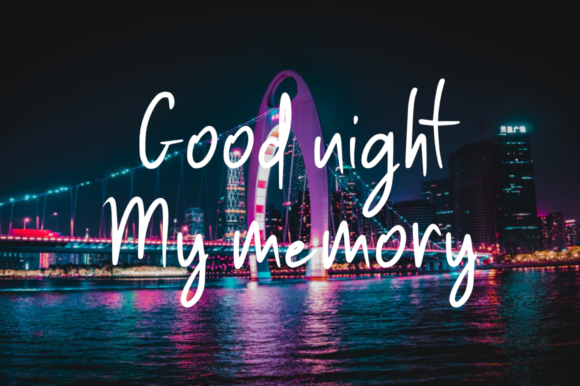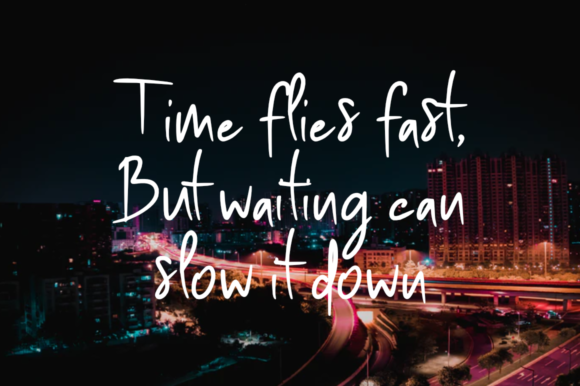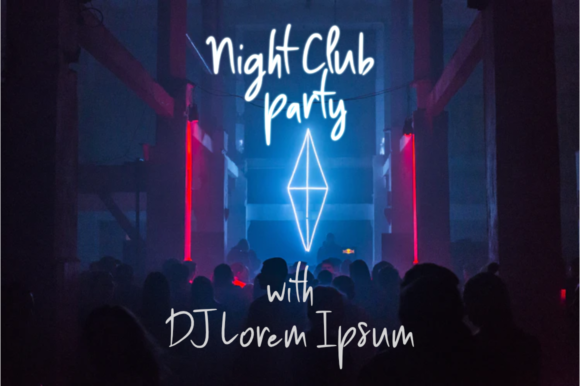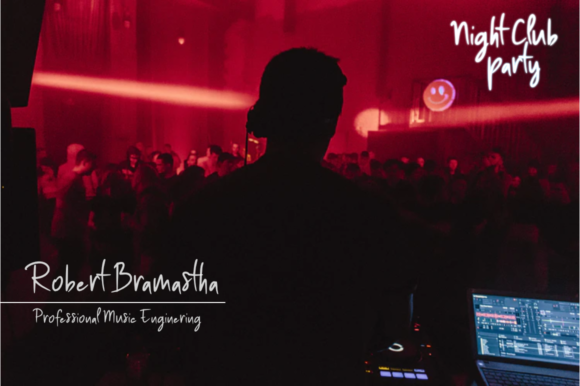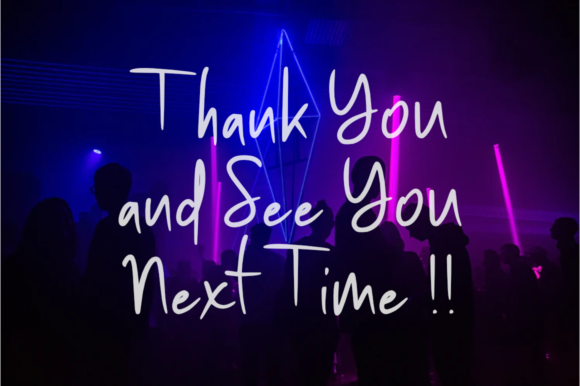
Introduction to Europhia Font
Europhia is a cute, simple and casual handwritten font.
Key Features of Europhia Font
Why Choose Europhia Font?
Europhia Font offers exceptional quality and versatility, making it a valuable addition to your design toolkit. Whether you’re creating for personal projects or commercial use, Europhia Font delivers professional results.